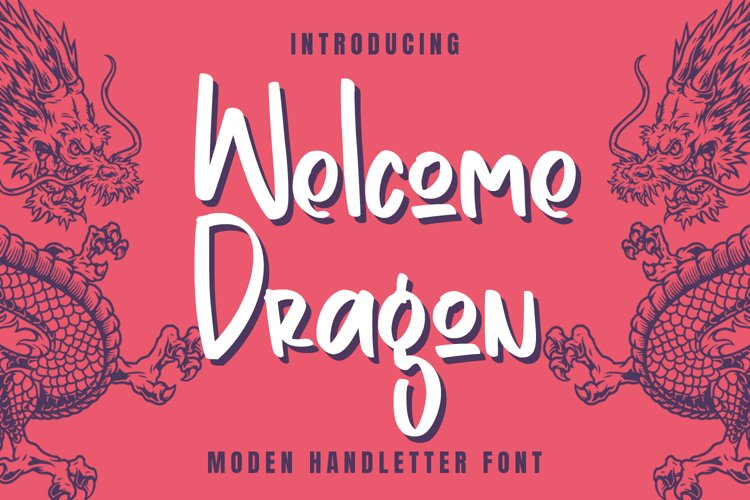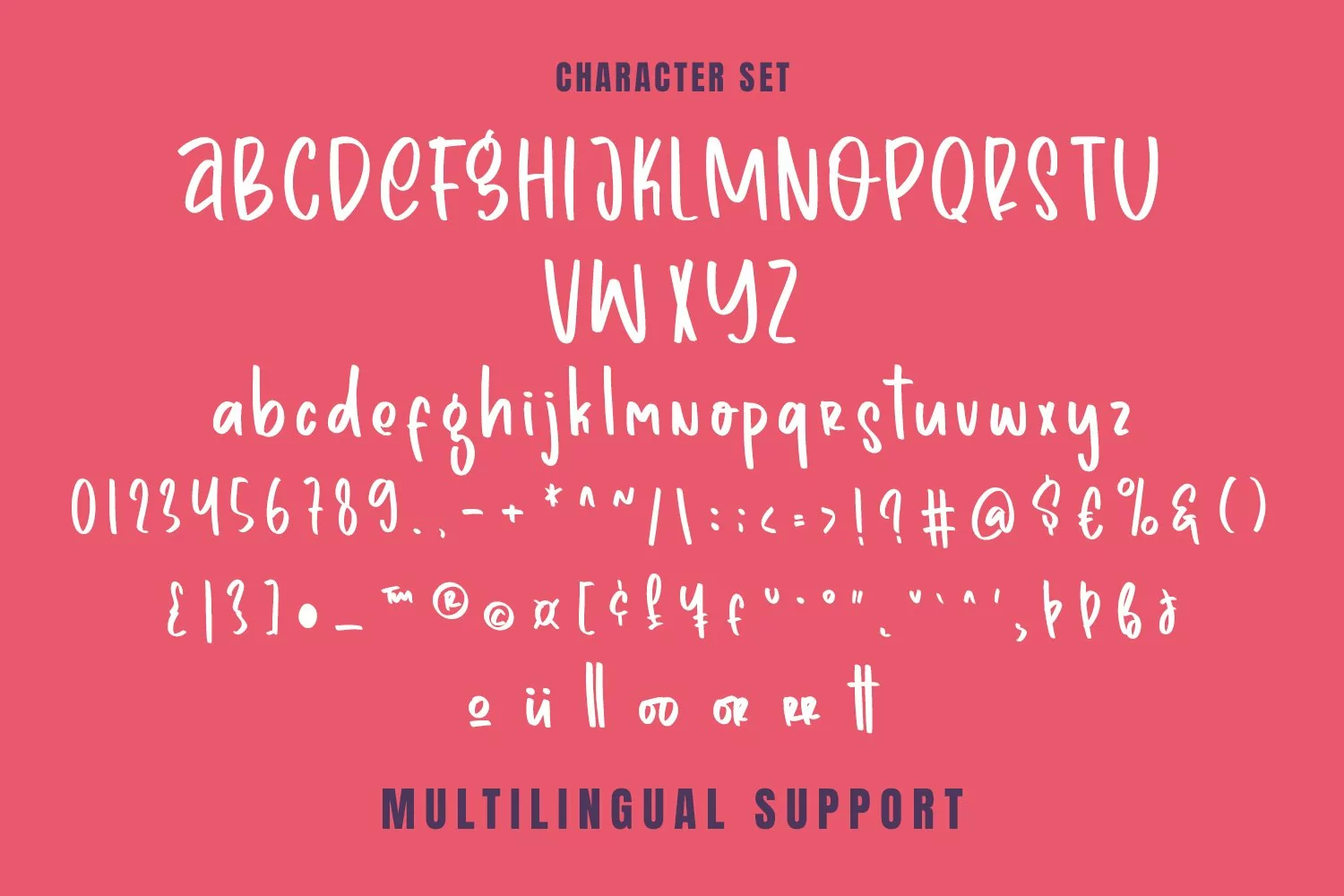
WelcomeDragon - Moden Handletter Font that contain lowercase, uppercase, symbol, and also support multi language. There’s a lot ligatures in this font. This Font also comes with ligatures, alternates and many more. this font suitable for fashion, branding, catalog and other design what you want.